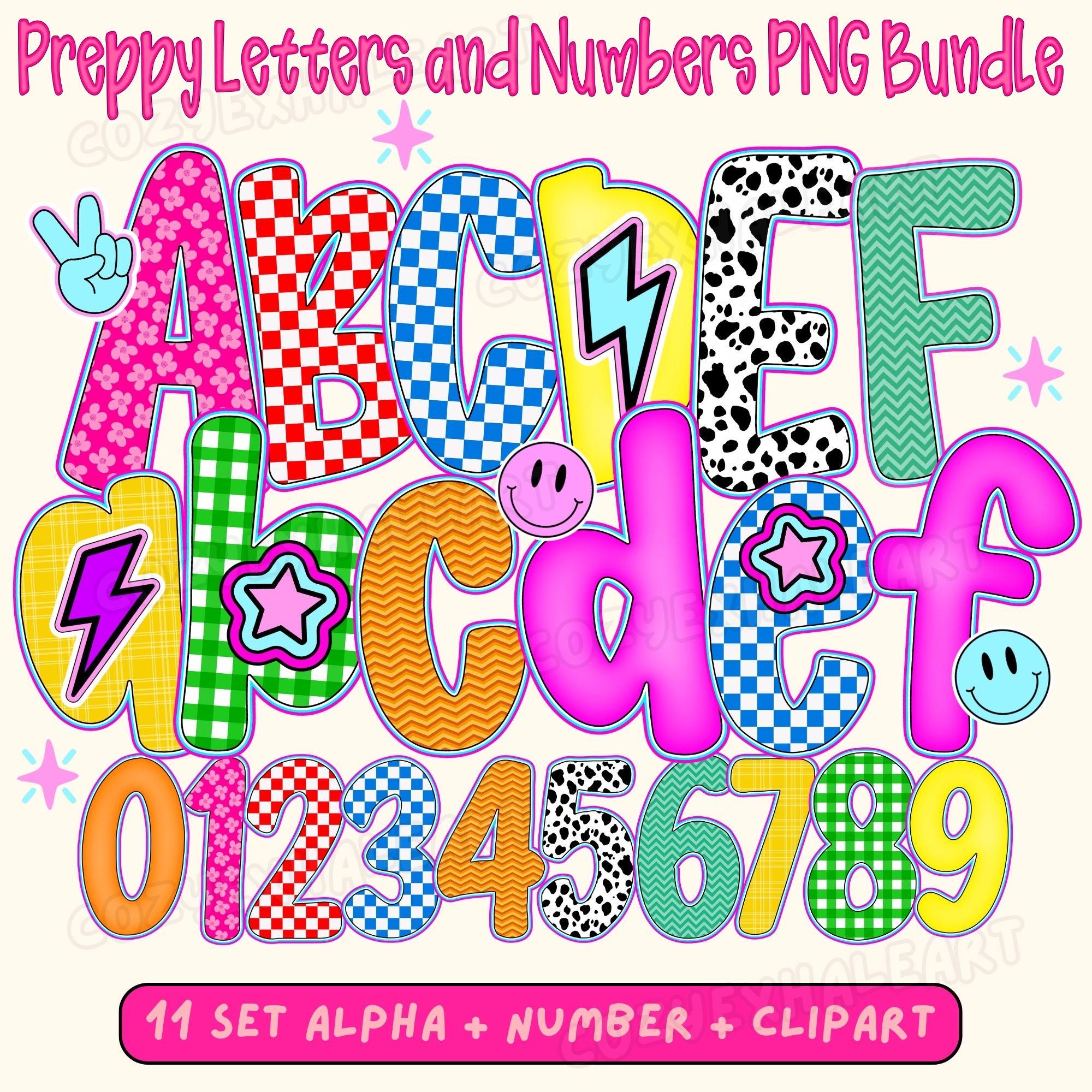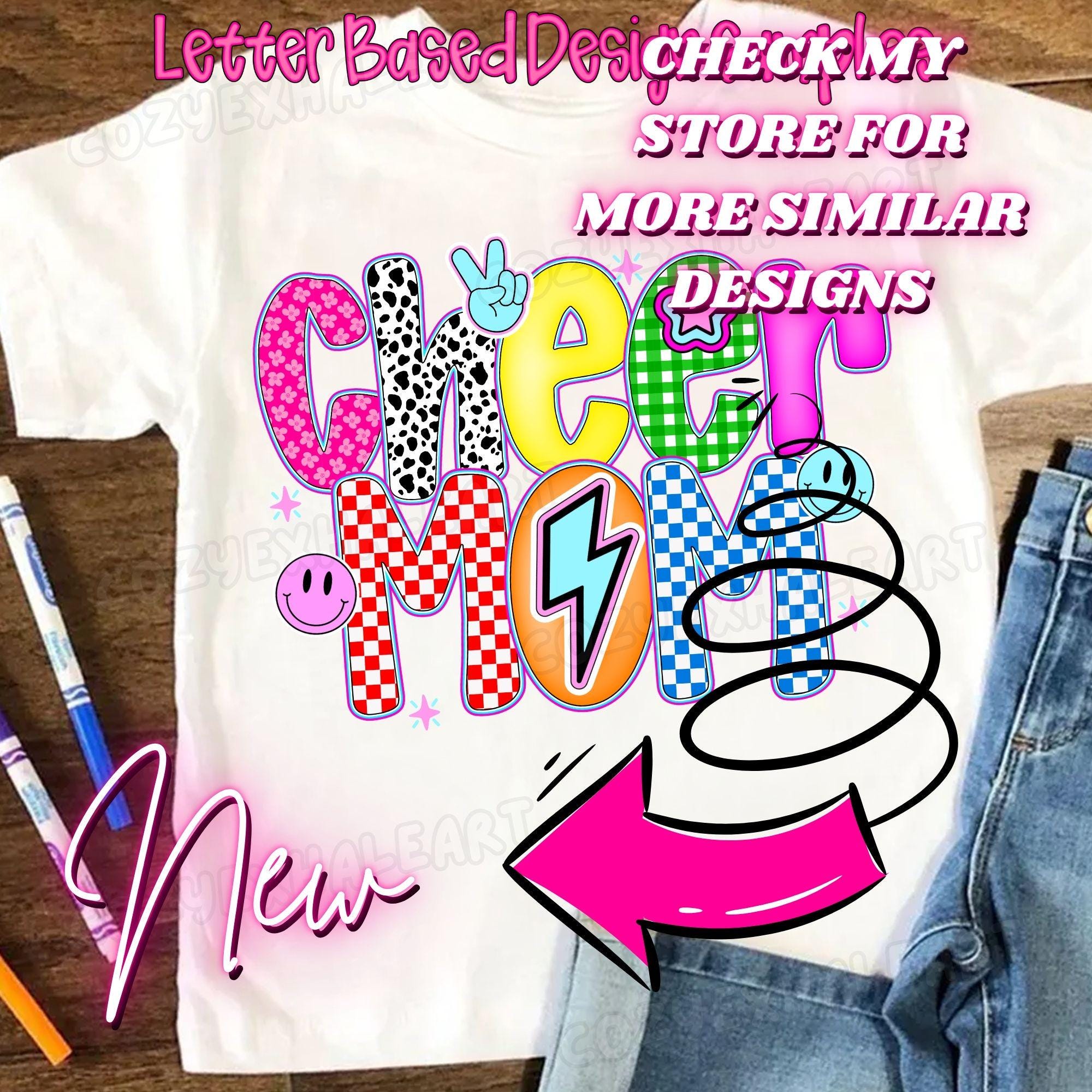
Preppy Y2K Clipart Font PNG Set with 10 Bright Styles Smiley Faces Stars Hearts Lightning Bolts and Sparkles for Sublimation and Crafts 11 Colors
Bring on the bold and bubbly vibes with this Preppy Y2K Clipart Font PNG Set! Packed with 10 vibrant styles including smiley faces, hearts, lightning bolts, stars, and sparkles, this alphabet bundle is perfect for teachers, students, party invites, and fun sublimation projects. 🎉💖⚡🌈
🔤 Includes A–Z letters in 10 unique, colorful Y2K-inspired clipart styles
😊 Designs feature smiley faces, hearts, stars, lightning bolts, and sparkles
🎀 Ideal for preppy, retro, and coquette-style projects